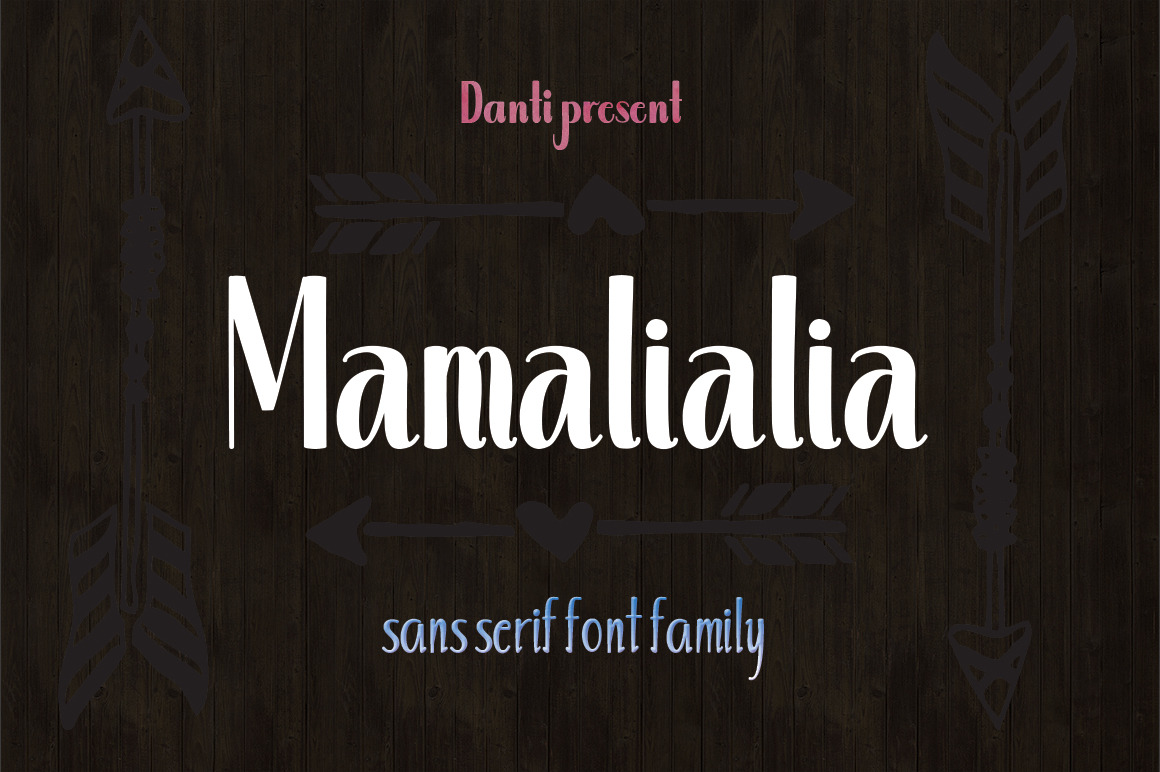
Mamalialia Font Family
Mamalialia Font Family is new sans serif font has a sleek typeface, font is very simple
and easy to manipulate: logo, slogan and made in advertising messages.